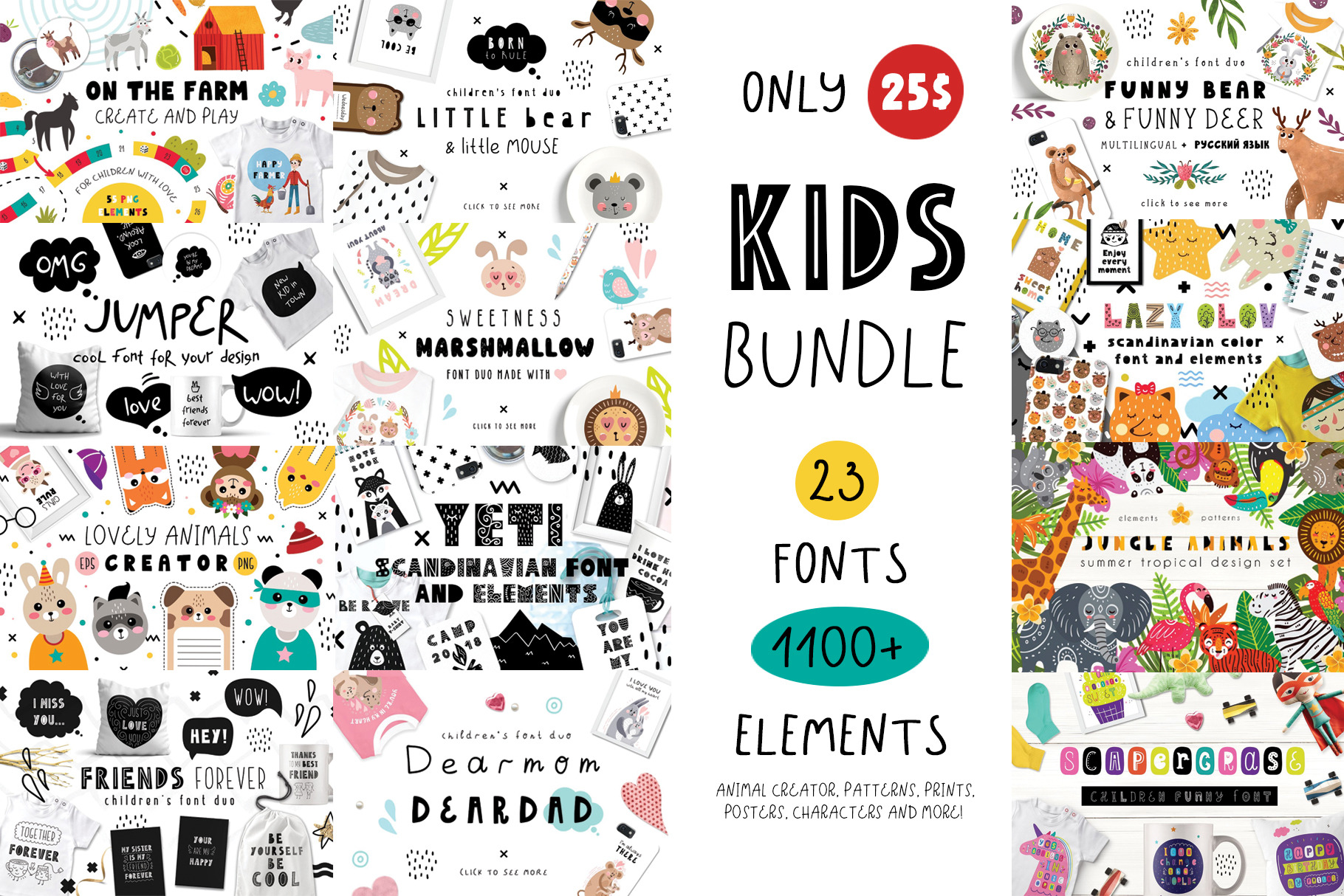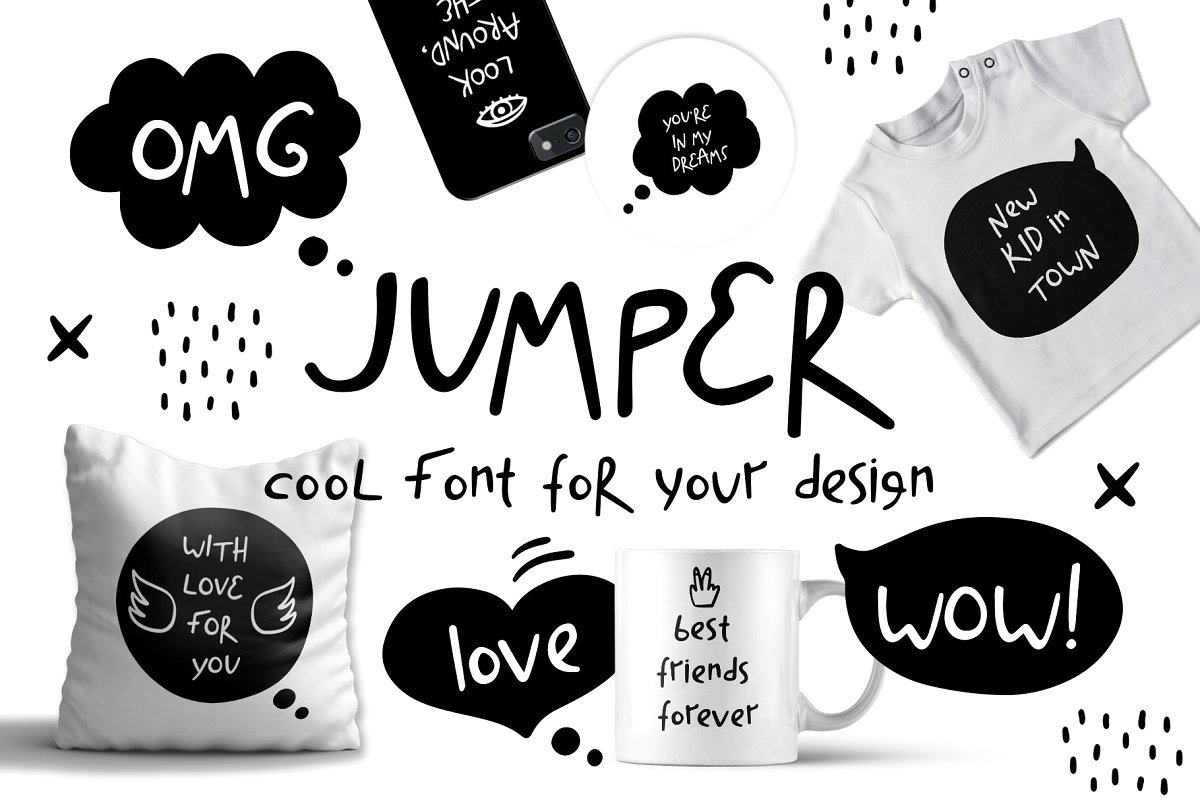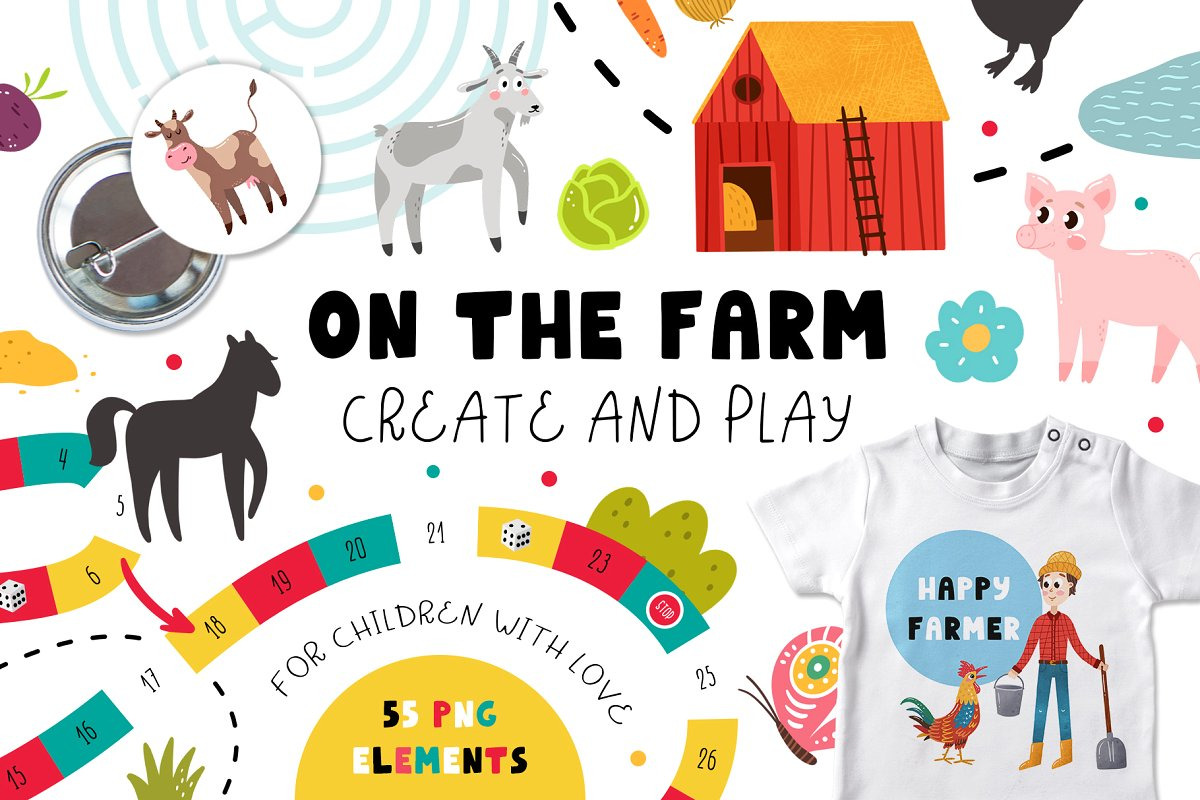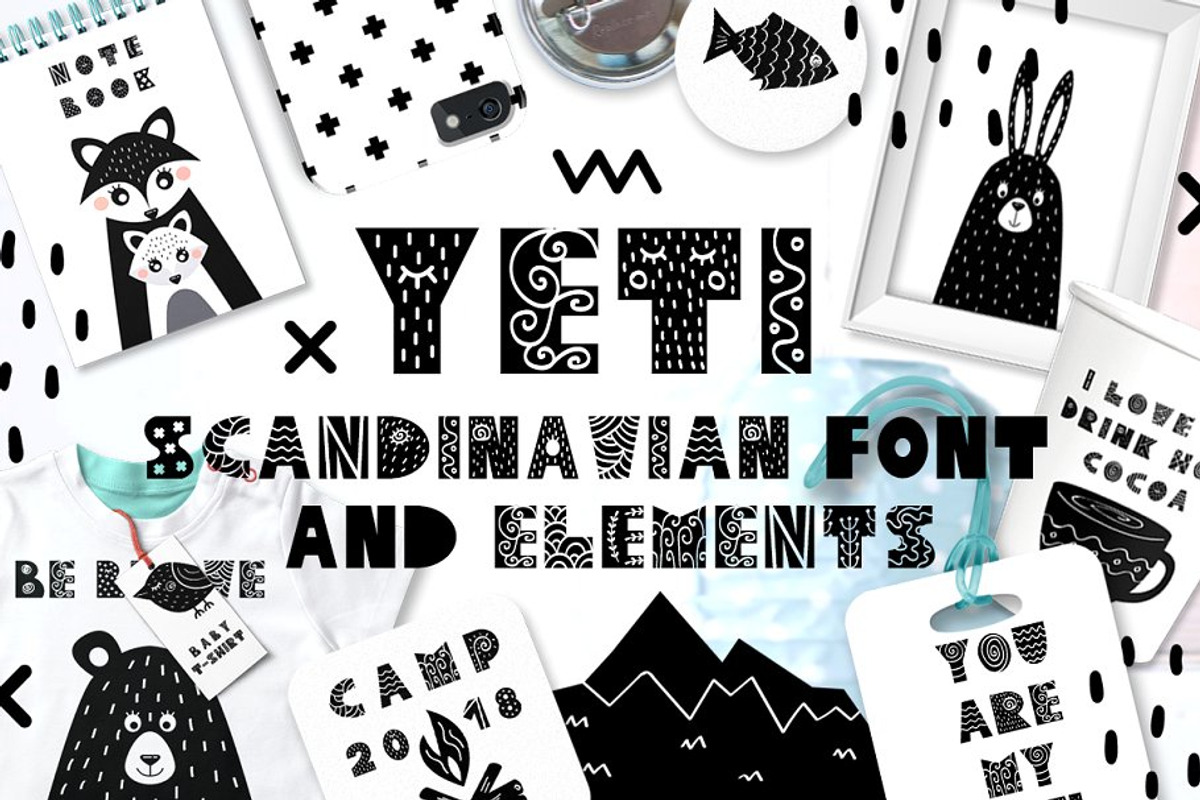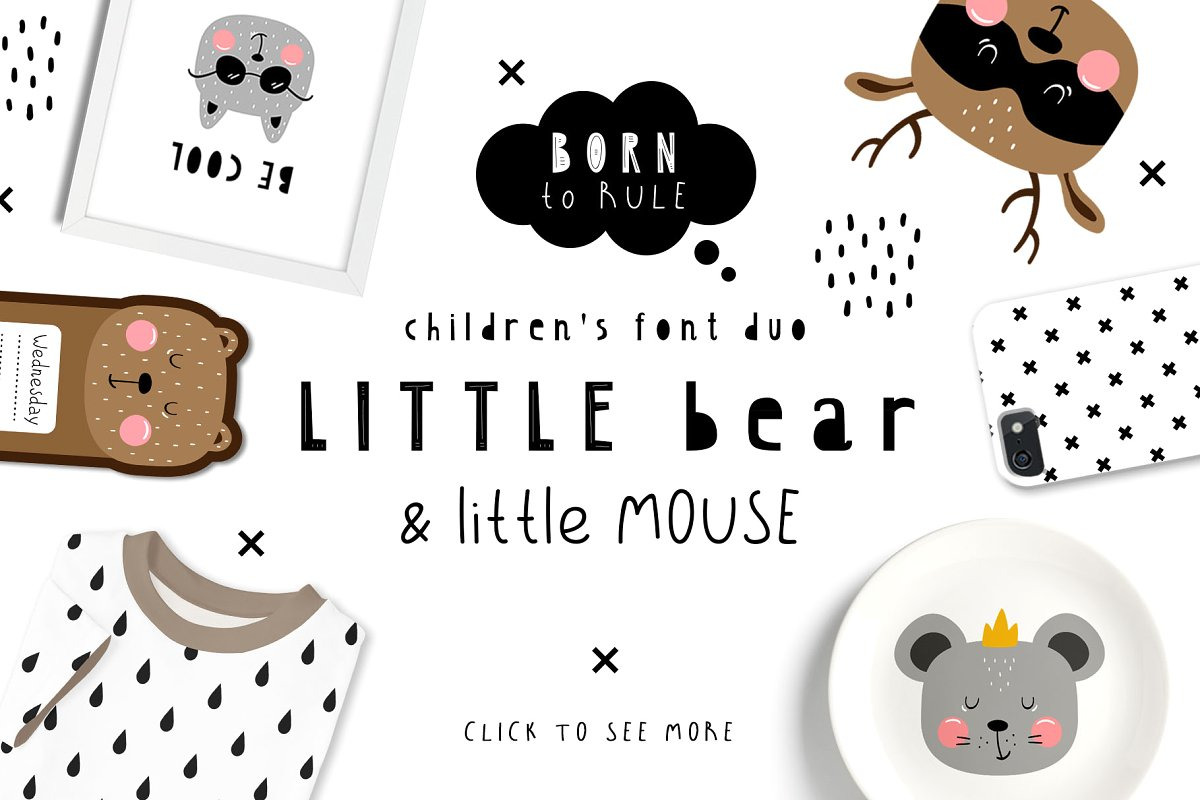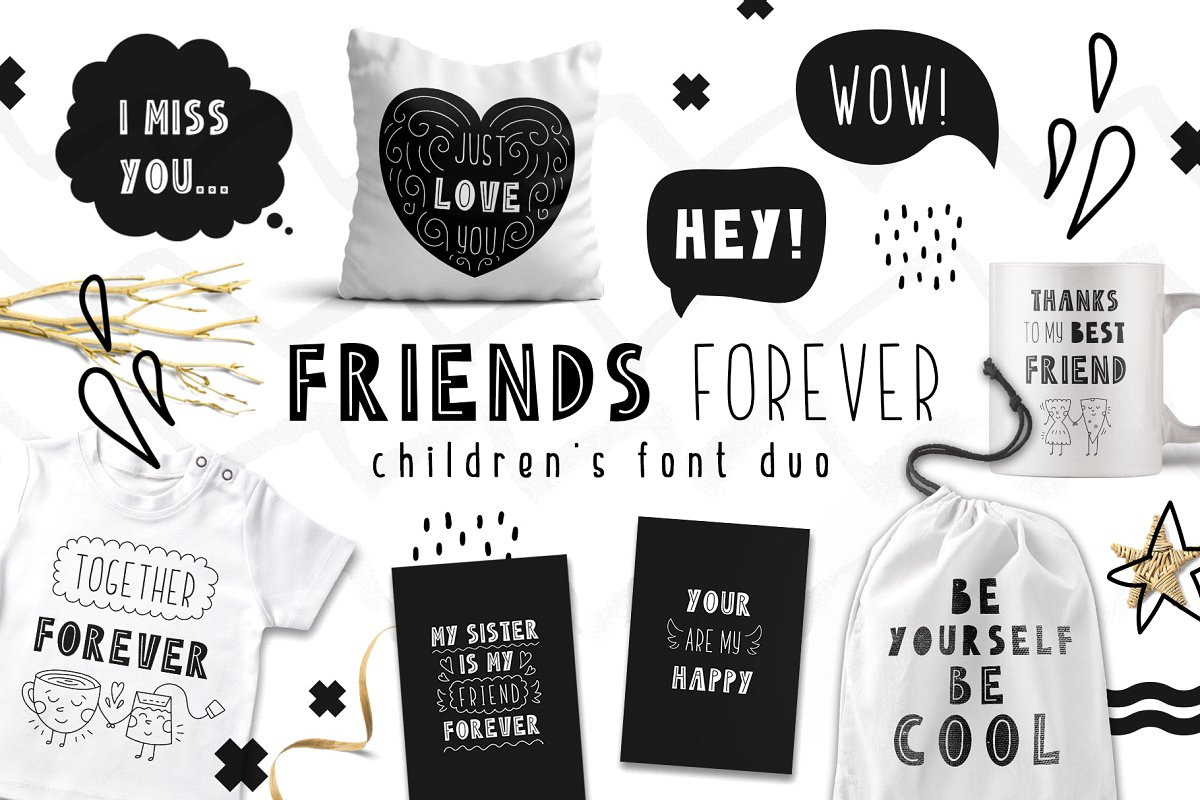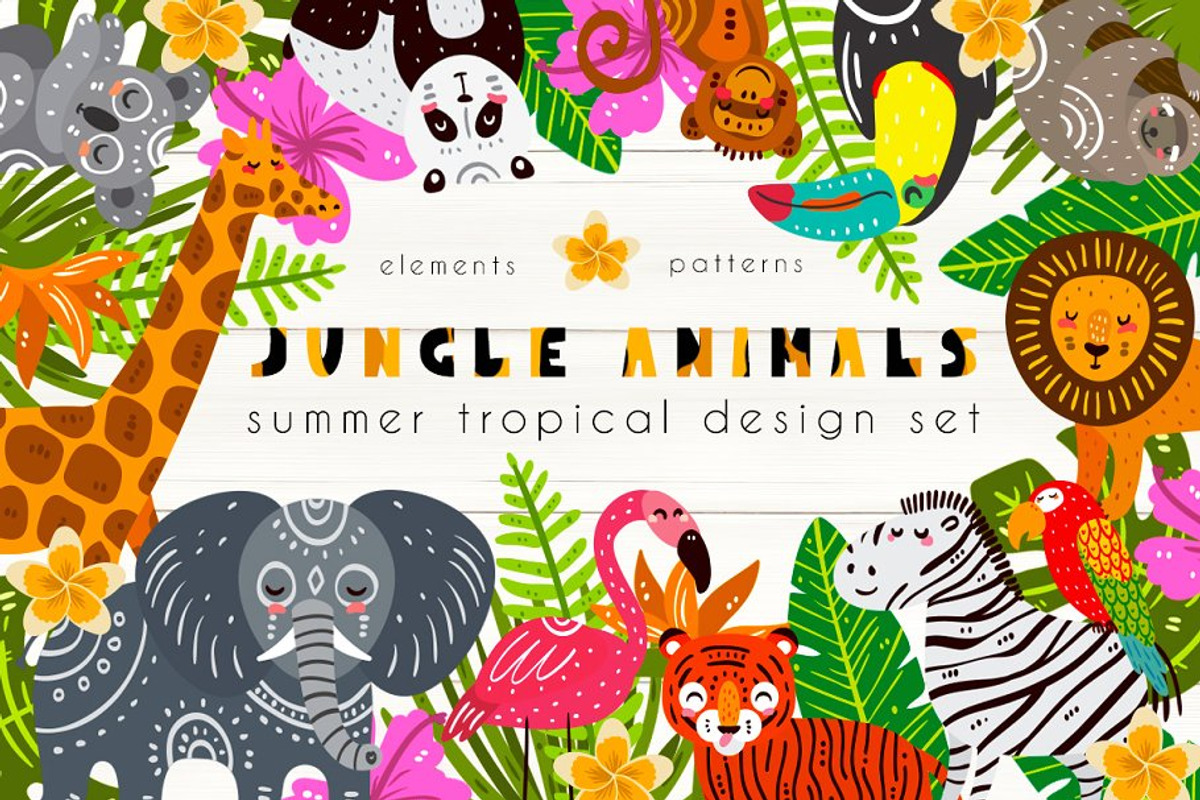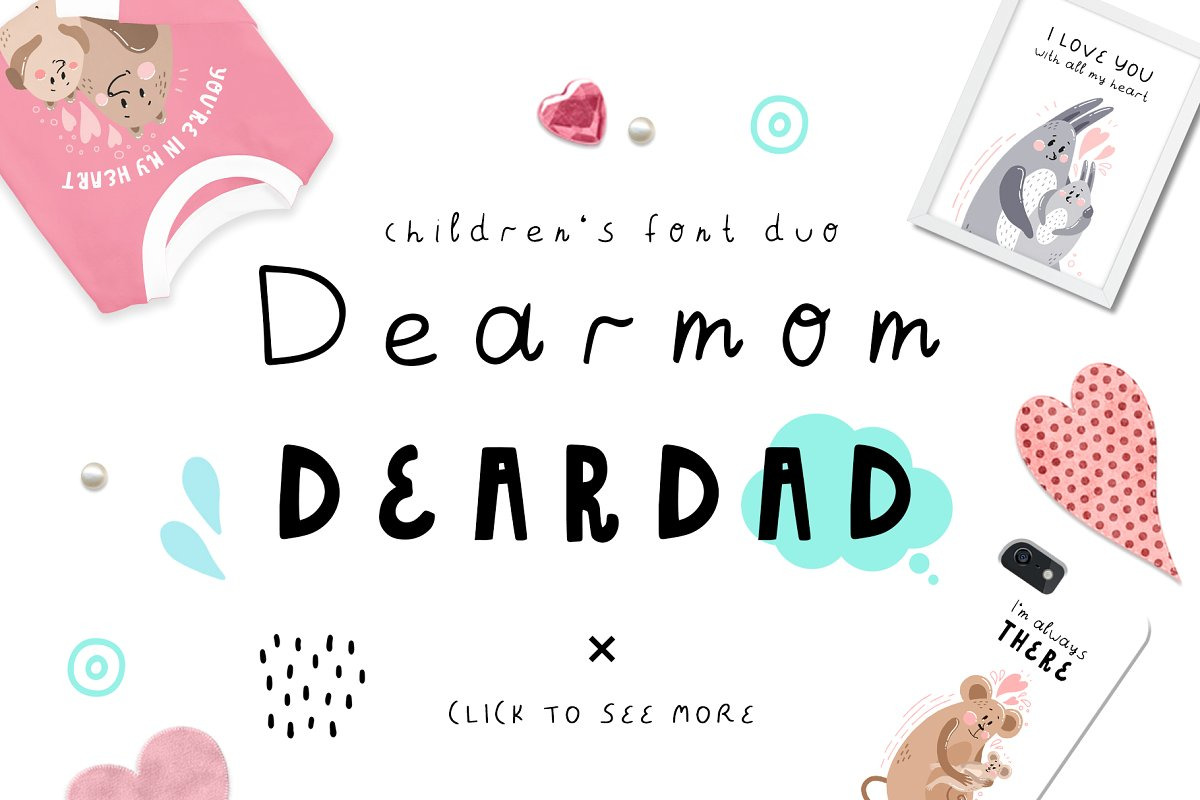
Kids Bundle: fonts and graphics
Hi! Now it's time for a big sale! This amazing collection includes 23 hand-drawn fonts and more than 1100 elements!
With these fun and fun tools, you can create unique designs for children's products: books, booklets, prints, posters, children's clothing, nursery wall art, room decor, etc...